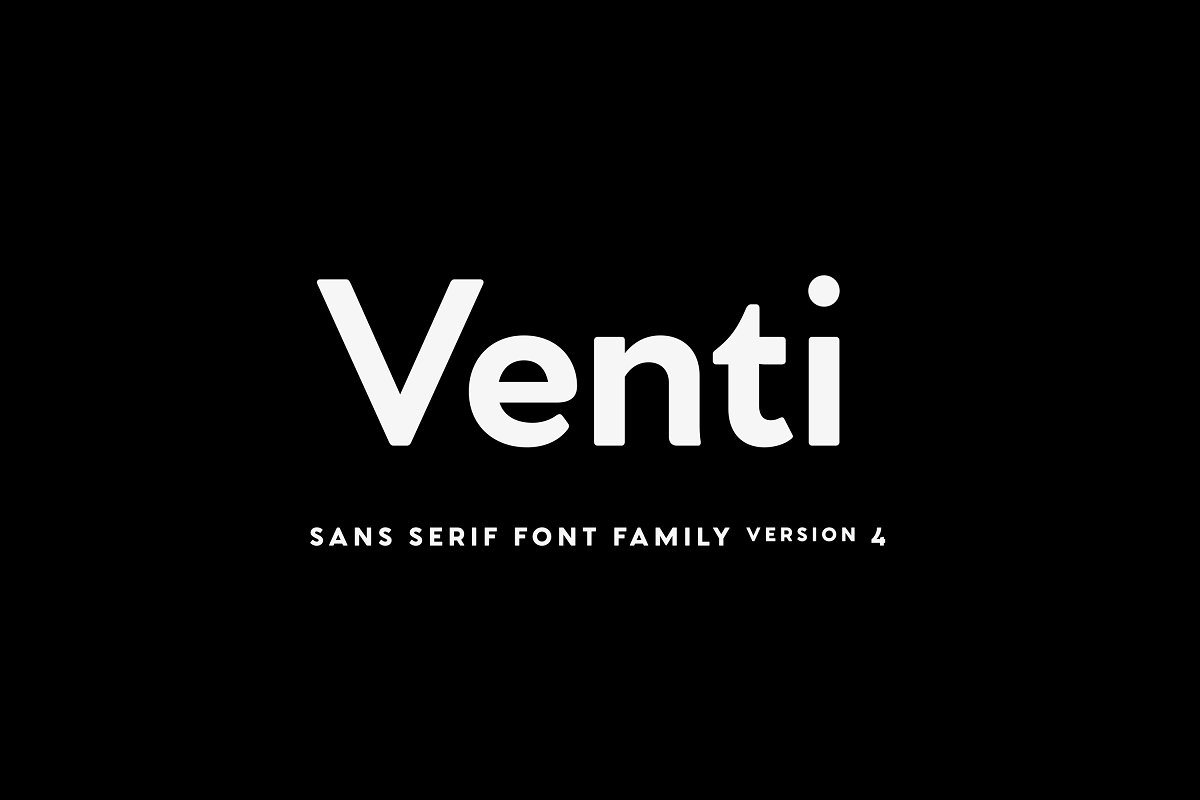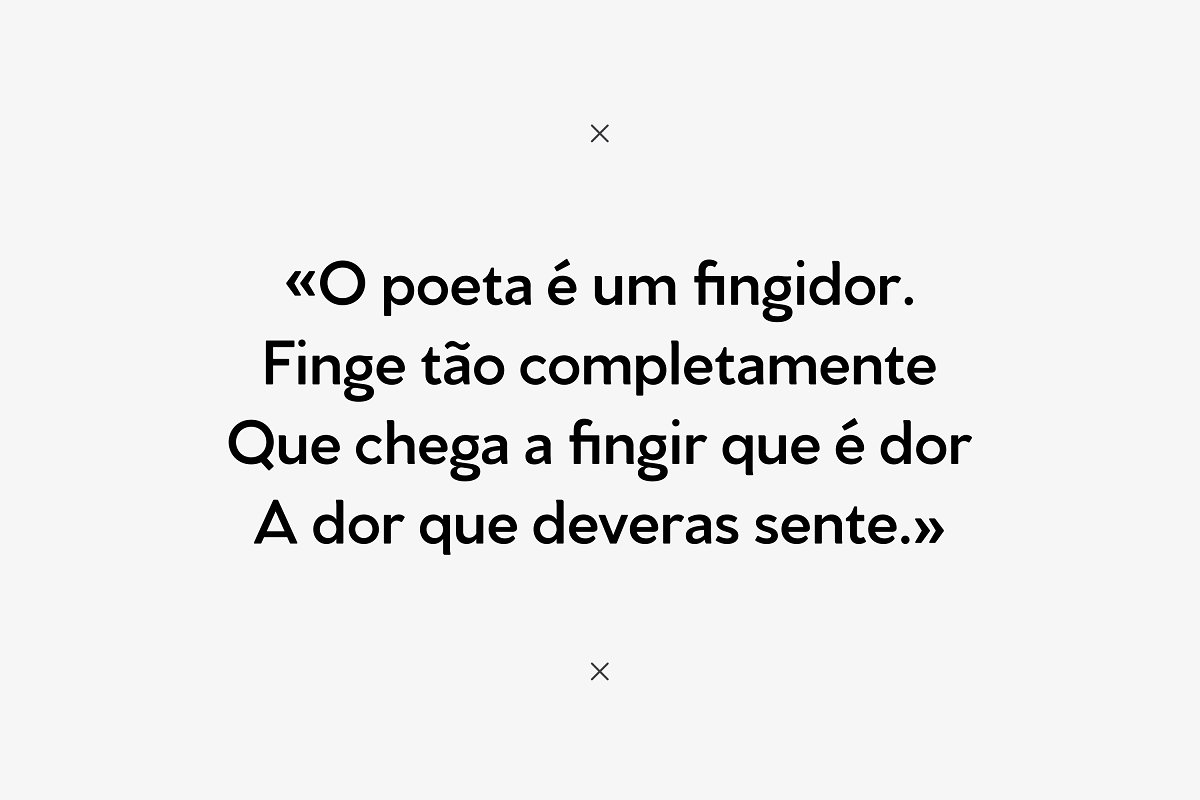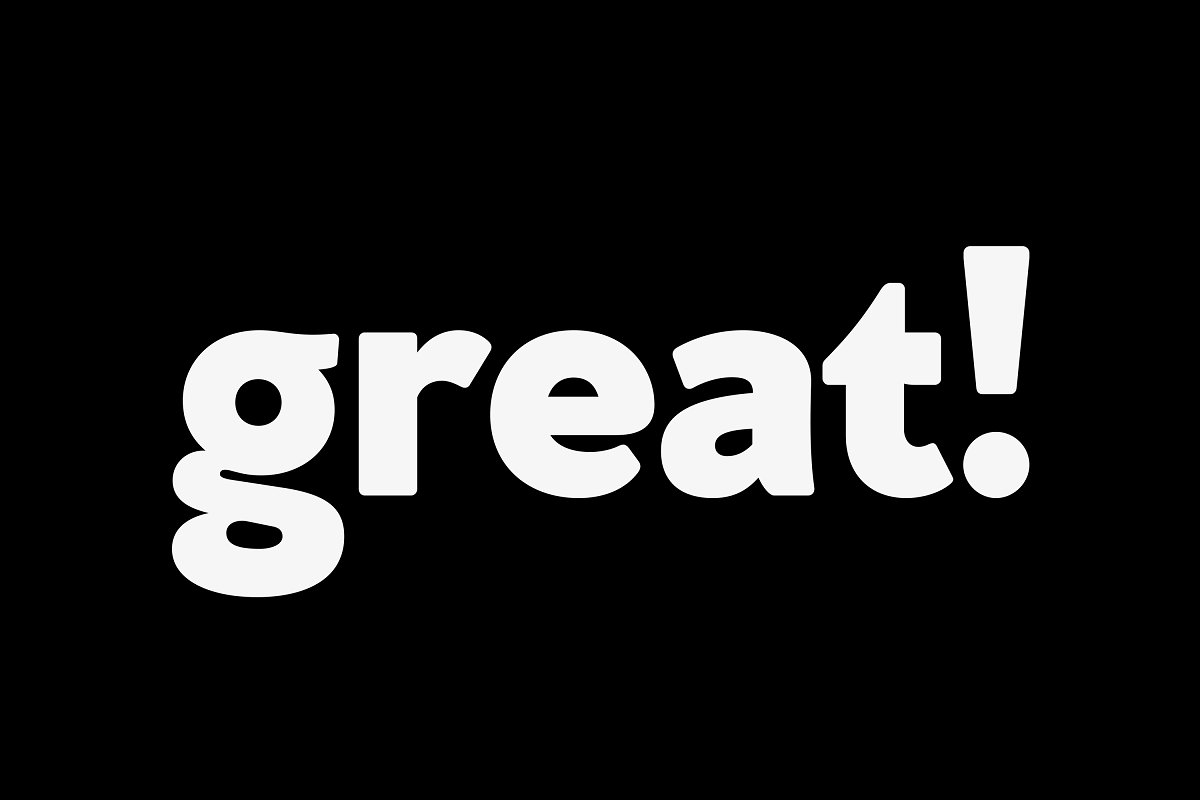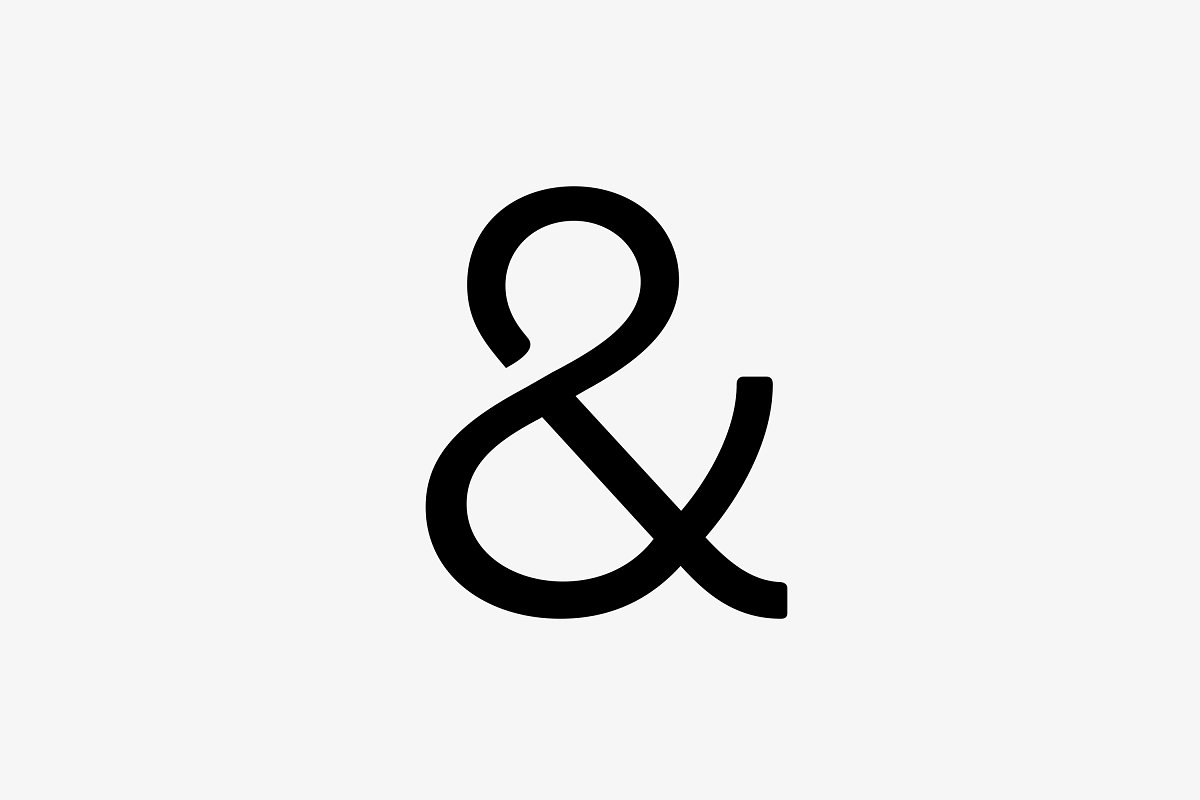
About the Venti CF sans serif family Font
Venti is a geometric font family with a warm, engaging character, Inviting and versatile, Venti’s subtle imperfections and human tone make it great for headlines, quotes and short text, The new version 4 update brings a host of refinements and improvements to a classic typeface, Eight weights and obliquesLatin and Cyrillic scriptsOpenType features (ligatures, oldstyle & tabular numerals, fractions)Free updates and bug fixesIf you have any questions about licensing, need help with a typeface, or would like to request a new feature, contact me at connary